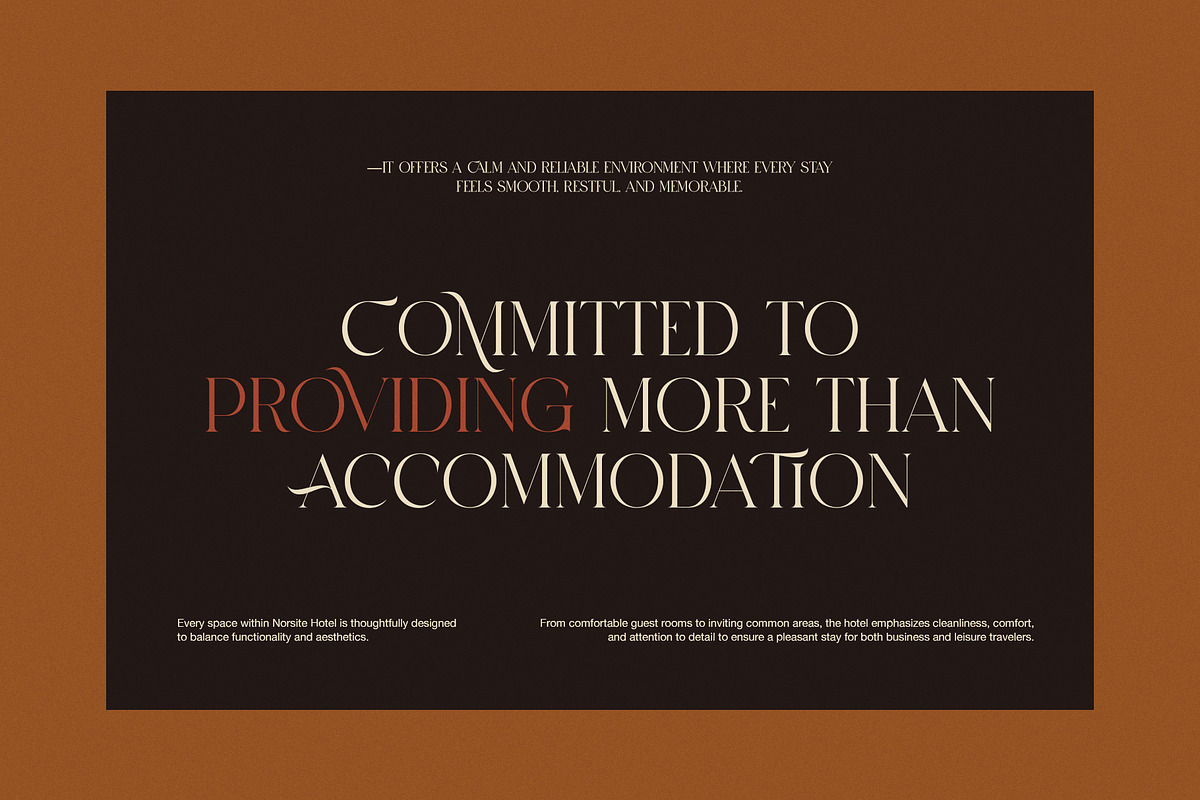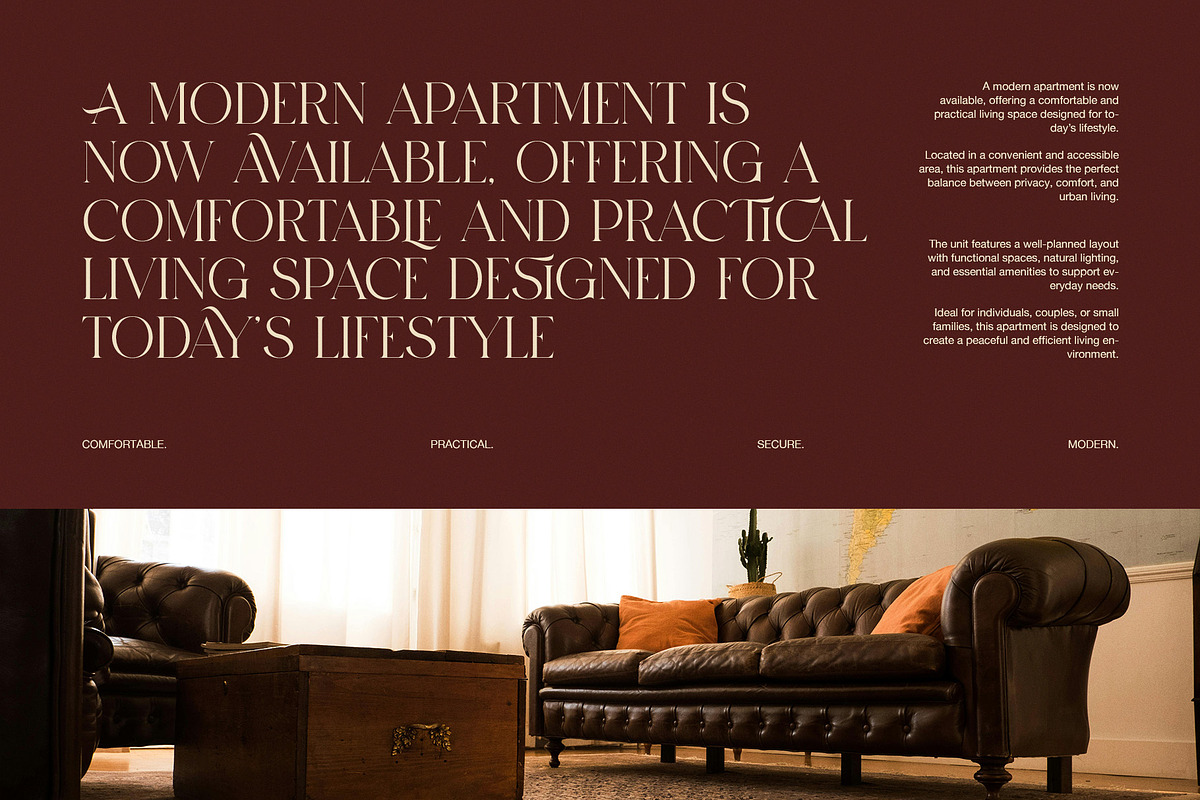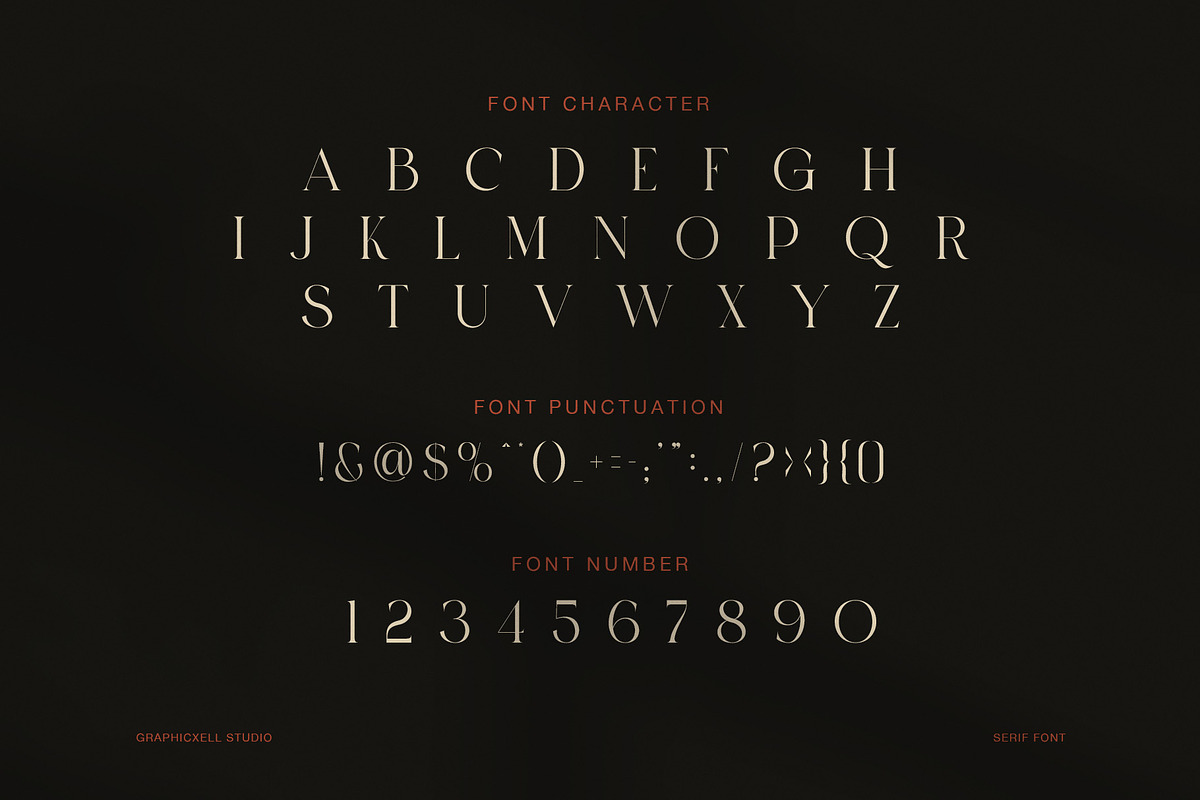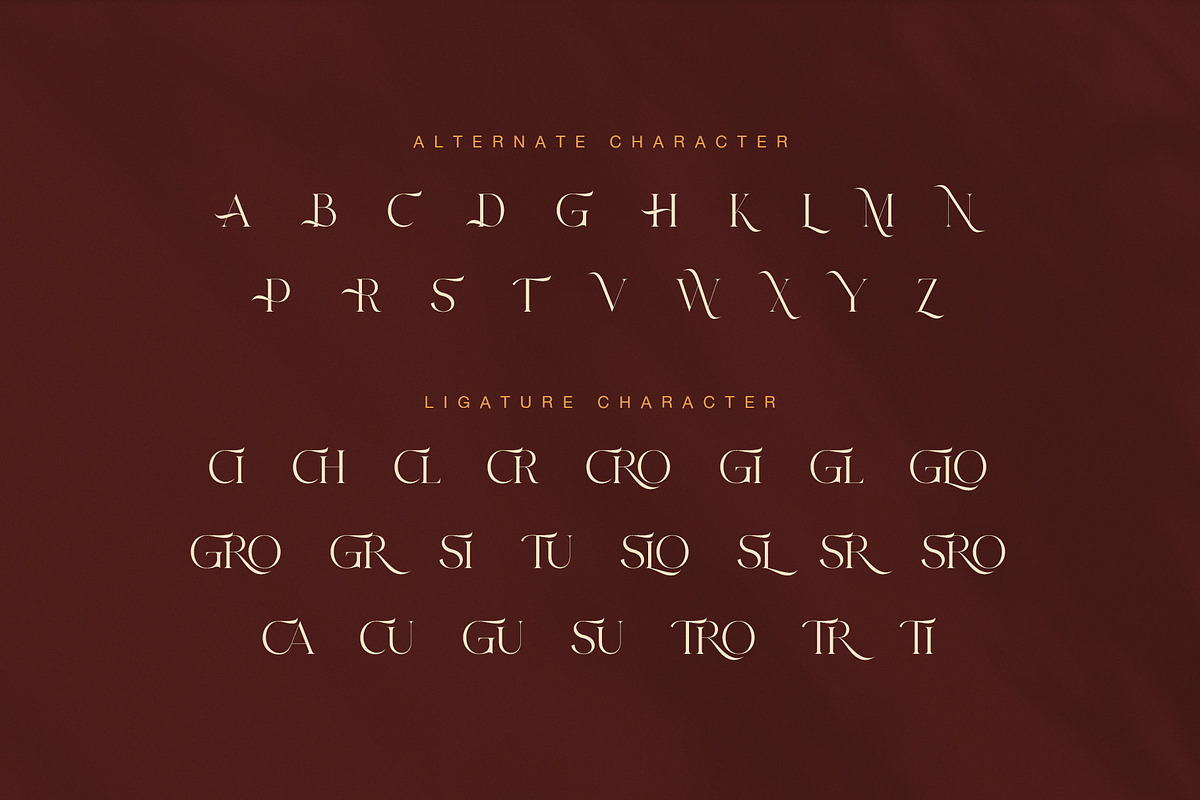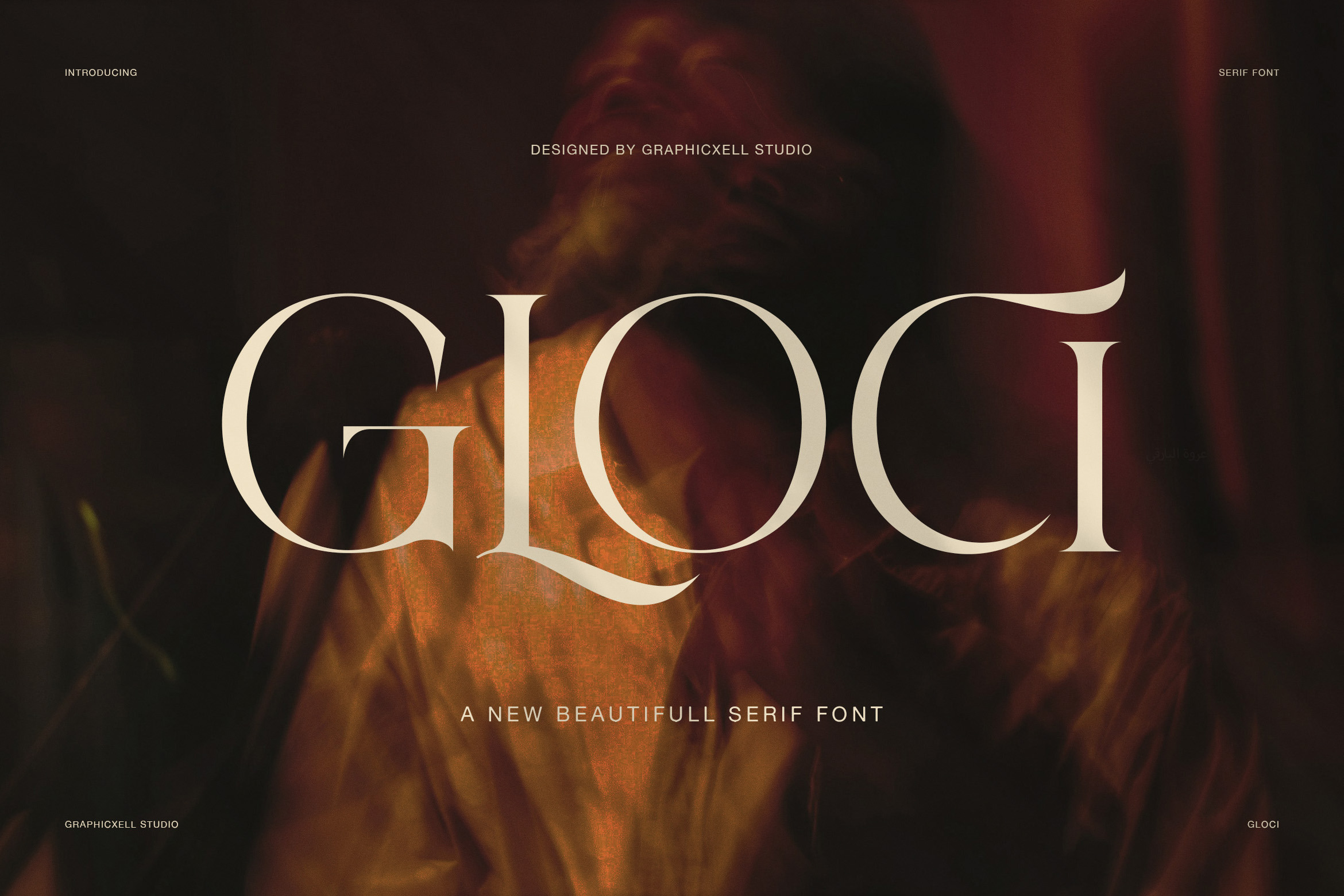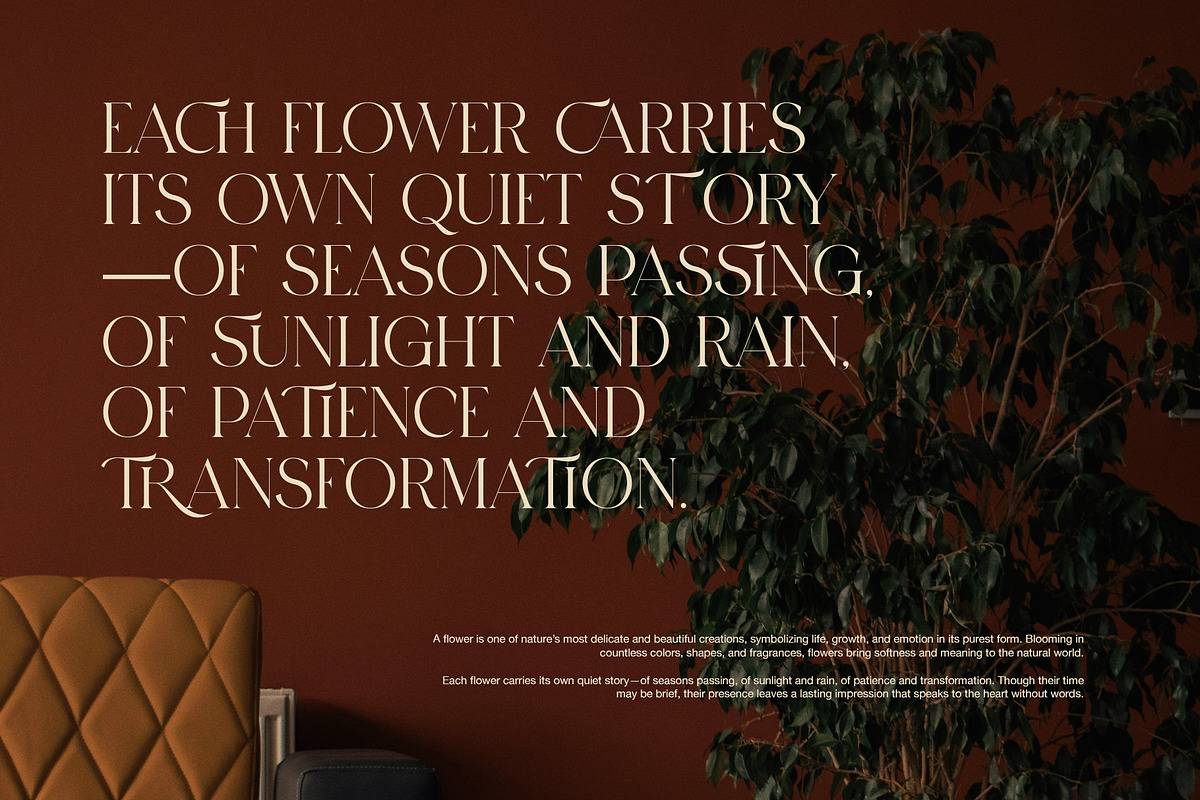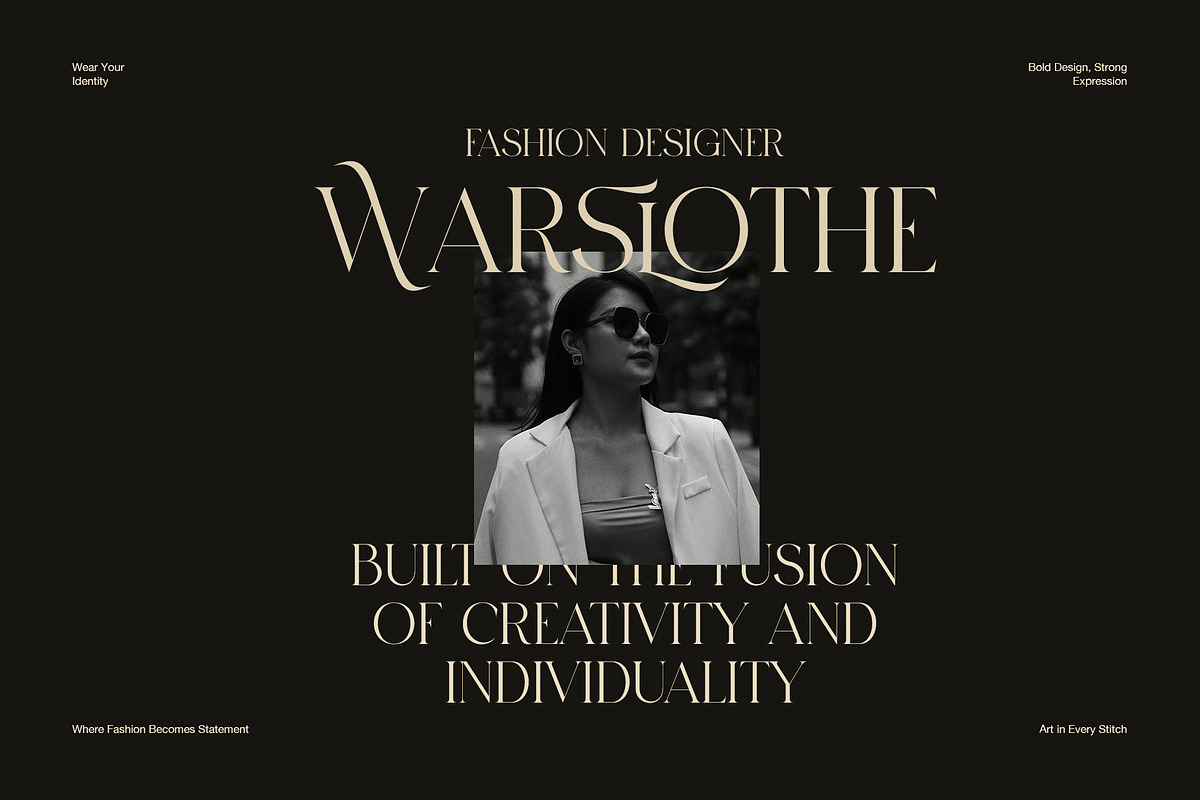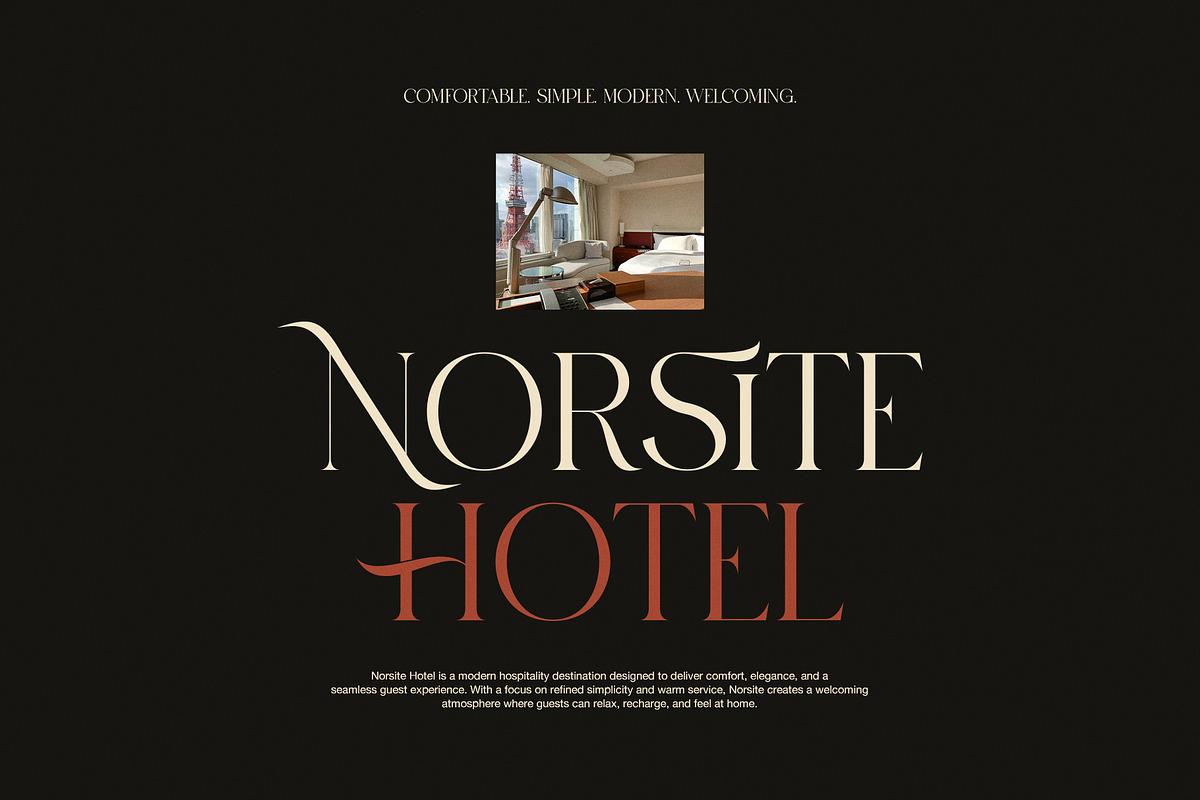
Gloci Elegant Serif Font
Gloci Elegant Serif Font is a refined display serif made for elegant branding, stylish editorials, and modern visual identity work. Its letterforms are slim, polished, and balanced, yet they also carry a soft dramatic feel. Because of this, Gloci looks graceful at first glance, while its alternate characters and ligatures add a more distinctive voice. The result is a serif font that feels classy, artistic, and highly usable for premium design.
This font has a strong fashion-forward character. The tall proportions, smooth curves, and sharp serif details create a clean and elevated impression. At the same time, the alternate characters introduce a custom look that helps headlines, logos, and names feel more personal. Therefore, Gloci is ideal for designers who want something elegant but not plain. It offers beauty, control, and style in one set.
Gloci works especially well in luxury branding. For example, it fits fashion labels, beauty packaging, hotel branding, restaurant menus, floral concepts, jewelry logos, and boutique product design. In addition, it performs beautifully in magazine titles, social media graphics, website headers, and invitation layouts. Since the font has both clarity and flair, it can support many visual directions without losing its identity.
Another key strength of Gloci is its display impact. Large text looks striking, polished, and memorable. Meanwhile, the ligatures help create smoother word shapes, so compositions feel more refined. Likewise, the alternates add movement and charm, which can make simple layouts feel more special. As a result, the font is very useful for branding systems that need both consistency and visual appeal.
Why Gloci stands out:
Elegant serif style with a modern luxury mood
Stylish alternates for a more custom look
Ligatures that improve flow and beauty
Clean proportions with refined contrast
Great for branding, logos, packaging, and editorials
Strong display presence for premium layouts
Overall, Gloci Elegant Serif Font is a strong choice for designers who need a stylish serif with beauty, flexibility, and character. It feels luxurious, modern, and expressive without becoming hard to use. Therefore, if you need an elegant serif font with alternates and ligatures for branding or editorial design, Gloci delivers a polished and memorable result.